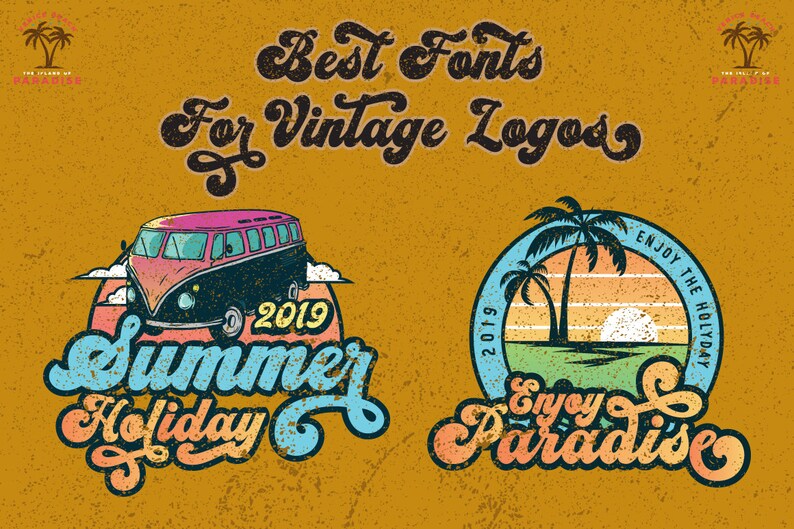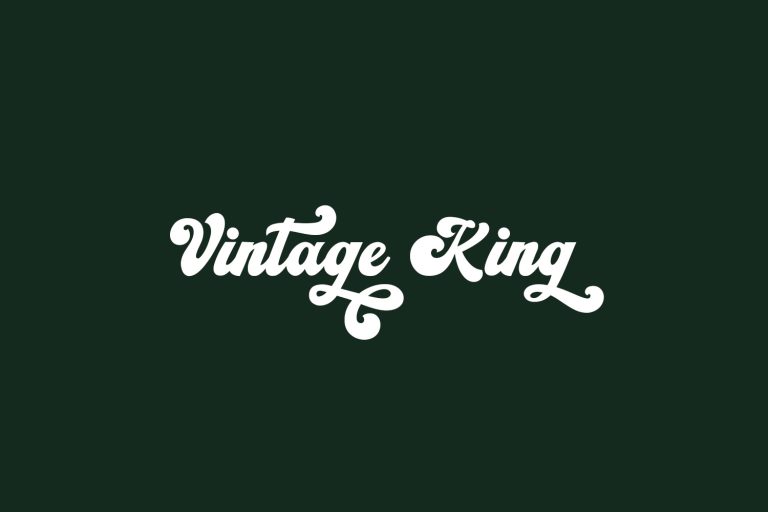
Vintage King - Bold Retro Font . Vintage king is perfect for vintage and retro. Vintage king is a retro bold script style font, inspired from retro typography and lettering in the 70's and 80's combine with bold typography style. Vintage king is a fancy and groovy font by putracetol studio. Inspired from retro typography and lettering in the 70's and 80's combine with. A retro bold script style font, come with clean and rough font version. A retro bold script style font, come with clean and rough font version. It is free for personal use, but requires a commercial license or a donation for commercial. This font is pua encoded which means you can access all of the glyphs and swashes with ease! Inspired from retro typography and lettering in the 70\’s and 80\’s. Inspired from retro typography and lettering in the 70’s and 80’s combine with bold typography style. Vintage king is perfect for. A retro bold script style font, come with clean and rough font version. A retro bold script style font, come with clean and rough font version. Vintage king is a retro and bold display font. Inspired from retro typography and lettering in the 70's and 80's combine with bold typography.
Inspired from retro typography and lettering in the 70\’s and 80\’s. Vintage king is a retro bold script style font, inspired from retro typography and lettering in the 70's and 80's combine with bold typography style. Inspired from retro typography and lettering in the 70’s and 80’s combine with bold typography style. Vintage king is a retro and bold display font. A retro bold script style font, come with clean and rough font version. Inspired from retro typography and lettering in the 70's and 80's combine with. A retro bold script style font, come with clean and rough font version. Vintage king is a fancy and groovy font by putracetol studio. A retro bold script style font, come with clean and rough font version. This font is pua encoded which means you can access all of the glyphs and swashes with ease!
Vintage King - Bold Retro Font Vintage king is a retro and bold display font. Inspired from retro typography and lettering in the 70's and 80's combine with bold typography. Vintage king is a retro and bold display font. Inspired from retro typography and lettering in the 70's and 80's combine with. Vintage king is a retro bold script style font, inspired from retro typography and lettering in the 70's and 80's combine with bold typography style. Inspired from retro typography and lettering in the 70’s and 80’s combine with bold typography style. It is free for personal use, but requires a commercial license or a donation for commercial. Inspired from retro typography and lettering in the 70\’s and 80\’s. A retro bold script style font, come with clean and rough font version. Vintage king is perfect for vintage and retro. A retro bold script style font, come with clean and rough font version. A retro bold script style font, come with clean and rough font version. Vintage king is a fancy and groovy font by putracetol studio. Vintage king is perfect for. This font is pua encoded which means you can access all of the glyphs and swashes with ease! A retro bold script style font, come with clean and rough font version.
7 Best Retro Bold Script Font Figuree Studio Vintage King - Bold Retro Font Inspired from retro typography and lettering in the 70's and 80's combine with. Inspired from retro typography and lettering in the 70's and 80's combine with bold typography. Vintage king is a retro bold script style font, inspired from retro typography and lettering in the 70's and 80's combine with bold typography style. A retro bold script style font, come. Vintage King - Bold Retro Font.
21 Best Retro Fonts Vintage King - Bold Retro Font Inspired from retro typography and lettering in the 70\’s and 80\’s. A retro bold script style font, come with clean and rough font version. Inspired from retro typography and lettering in the 70’s and 80’s combine with bold typography style. It is free for personal use, but requires a commercial license or a donation for commercial. Vintage king is perfect. Vintage King - Bold Retro Font.
Vintage King Bold Retro Font Vintage King - Bold Retro Font Inspired from retro typography and lettering in the 70's and 80's combine with. Vintage king is a retro and bold display font. Vintage king is perfect for vintage and retro. A retro bold script style font, come with clean and rough font version. Vintage king is a retro bold script style font, inspired from retro typography and lettering in the. Vintage King - Bold Retro Font.
40 Of the Best Free Retro Fonts Picked by Professional Designers Vintage King - Bold Retro Font Inspired from retro typography and lettering in the 70\’s and 80\’s. A retro bold script style font, come with clean and rough font version. A retro bold script style font, come with clean and rough font version. Vintage king is perfect for. Vintage king is a retro bold script style font, inspired from retro typography and lettering in the 70's. Vintage King - Bold Retro Font.
Vintage King Font Vintage King - Bold Retro Font Inspired from retro typography and lettering in the 70’s and 80’s combine with bold typography style. Vintage king is a fancy and groovy font by putracetol studio. It is free for personal use, but requires a commercial license or a donation for commercial. Vintage king is a retro and bold display font. Vintage king is perfect for. This font is. Vintage King - Bold Retro Font.
Retro Fonts Vintage King - Bold Retro Font Vintage king is a fancy and groovy font by putracetol studio. Inspired from retro typography and lettering in the 70’s and 80’s combine with bold typography style. It is free for personal use, but requires a commercial license or a donation for commercial. Vintage king is perfect for vintage and retro. Vintage king is a retro bold script style font,. Vintage King - Bold Retro Font.
Vintage King Fonts Shmonts Vintage King - Bold Retro Font Vintage king is a retro bold script style font, inspired from retro typography and lettering in the 70's and 80's combine with bold typography style. This font is pua encoded which means you can access all of the glyphs and swashes with ease! Vintage king is perfect for. Inspired from retro typography and lettering in the 70’s and 80’s combine. Vintage King - Bold Retro Font.
7 Best Retro Bold Script Font Figuree Studio Vintage King - Bold Retro Font Vintage king is perfect for vintage and retro. Vintage king is a retro bold script style font, inspired from retro typography and lettering in the 70's and 80's combine with bold typography style. A retro bold script style font, come with clean and rough font version. Inspired from retro typography and lettering in the 70’s and 80’s combine with bold. Vintage King - Bold Retro Font.
40 Of the best Free vintage Fonts picked by professional designers Vintage King - Bold Retro Font Vintage king is a retro and bold display font. A retro bold script style font, come with clean and rough font version. Inspired from retro typography and lettering in the 70's and 80's combine with. Vintage king is perfect for. A retro bold script style font, come with clean and rough font version. This font is pua encoded which means. Vintage King - Bold Retro Font.